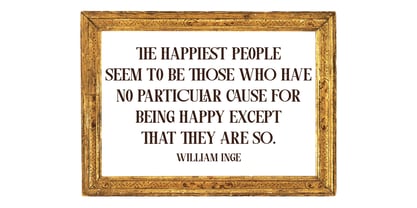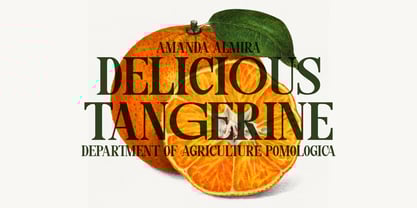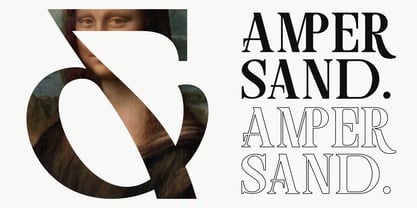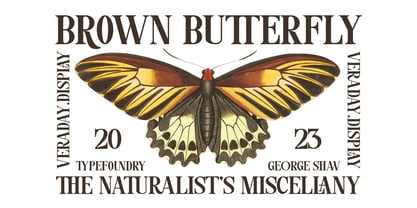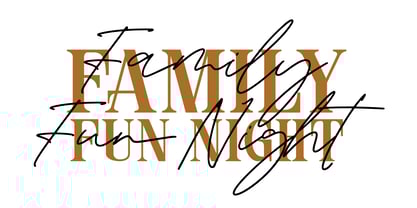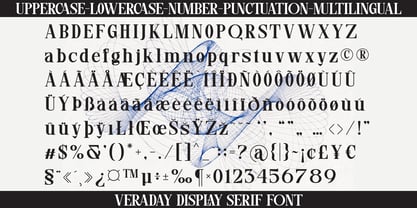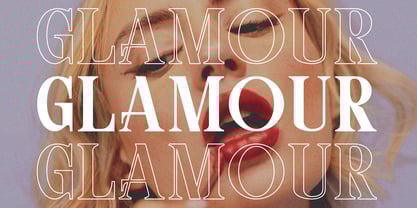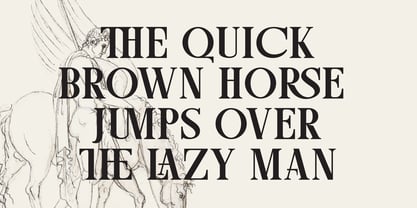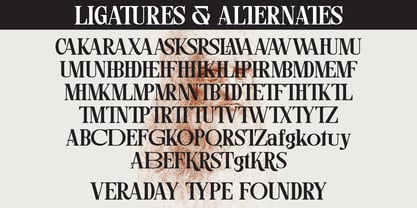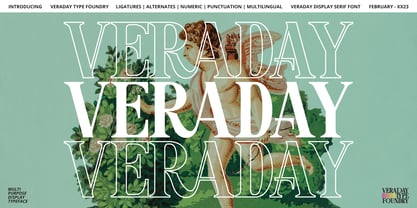
Veraday Display Serif
The Veraday Display Serif Font Family was designed by Ferdiansyah and published by ijemrockart. Veraday Display Serif contains 1 styles.
Veraday Display Serif a new fresh & modern serif with a strong style, a dancing baseline! So beautiful on invitation like greeting cards, branding materials, business cards, quotes, posters, and more!
Veraday Display Serif is the part of a strong and modern Bold display. This typeface both impressive at display sizes and easily readable in text size, while the sharp shapes of the triangular serif and the distinctive letter shapes show their strength in logo design and impressive editorial use.